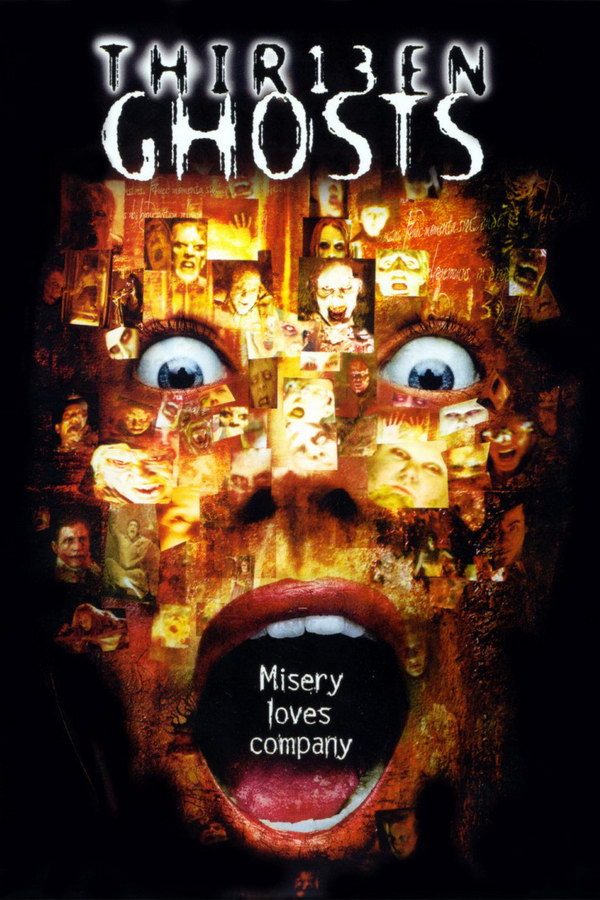
Thirteen Ghosts Font
Fonts in UseThirteen Ghosts is a horror movie about a family who inherits a mansion that is haunted by 12 malevolent spirits and a powerful entity called the Juggernaut. They must find a way to escape the house before they become the thirteenth ghost.